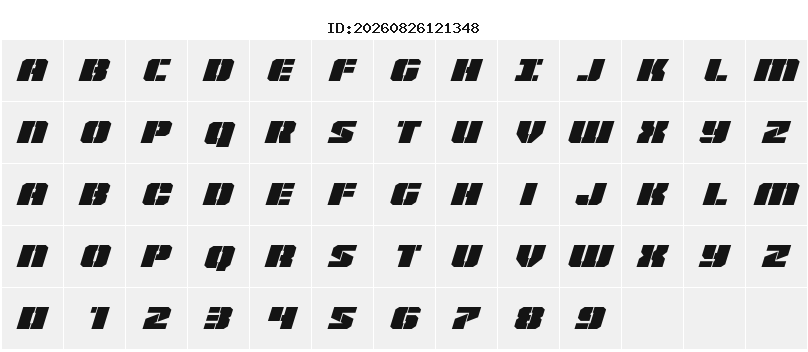
• Font Name: Warp Thruster Expanded Italic
• Font Style: Expanded Italic
• Full Font Name: Warp Thruster Expanded Italic
• PostScript Name: WarpThrusterExpandedItalic
About Warp Thruster Expanded Italic.ttf
Warp Thruster Expanded Italic.ttf is a modern, elegant sans-serif font designed for ultimate readability and visual harmony. Perfect for branding, headlines, web design, and print materials.